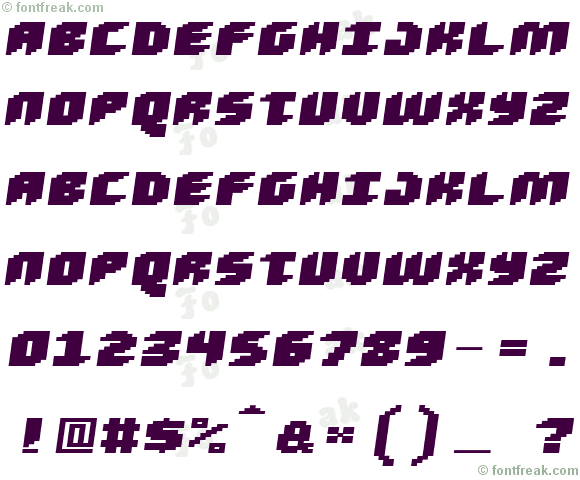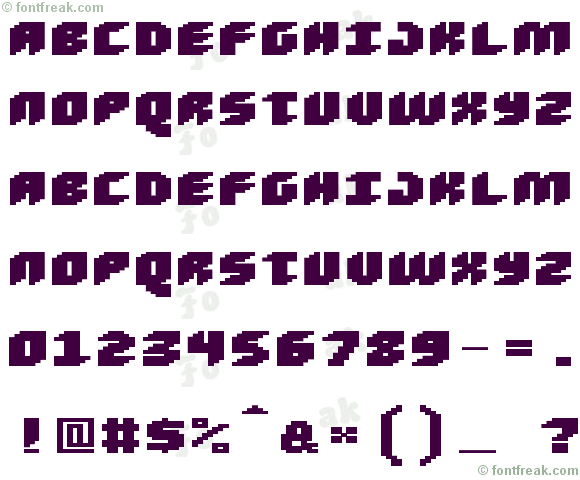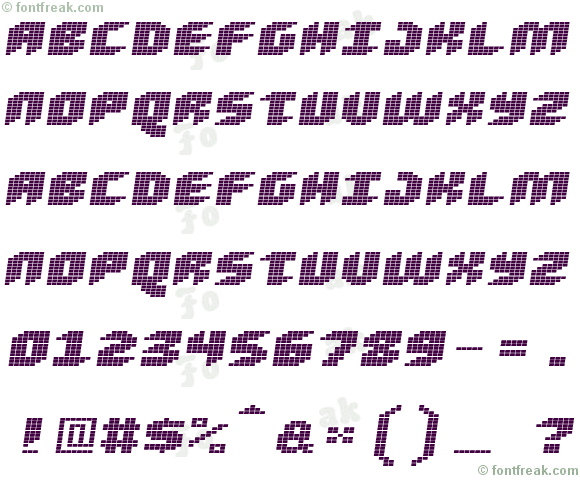
About Loud Noise
Introducing the Loud Noise font by Pizzadude, a striking display typeface that captures attention with its bold and dynamic design. This freeware font is characterized by its heavy stroke weight and unique skew, giving it an energetic and slightly chaotic feel that perfectly embodies its name. The letters are crafted with a consistent width, ensuring legibility while exuding a sense of movement and excitement. This makes the Loud Noise font an excellent choice for projects that aim to convey a loud or vibrant atmosphere.
The Loud Noise font is versatile and can be effectively used in various design contexts. It is particularly well-suited for movie posters, where it can grab the viewer's attention and set the tone for the film's theme. Additionally, its bold aesthetic makes it ideal for music-related graphics, such as album covers or promotional materials for concerts. Small business owners who want to make a statement with their branding will find this font perfect for signage or menu designs, especially in trendy cafes or bars. Content creators aiming for a youthful and adventurous vibe can utilize the Loud Noise font in their social media graphics or blog headers.
Targeted towards graphic designers, small business owners, and content creators, the Loud Noise font stands out due to its distinctive visual flair and energetic style. This font is not just a typeface; it's a statement, making it an essential addition to any designer's toolkit. With its eye-catching design and free availability, the Loud Noise font free download offers an exciting opportunity for creative projects that demand attention and personality. Embrace the noise and let your designs resonate with this unique typeface that commands presence and inspires creativity.